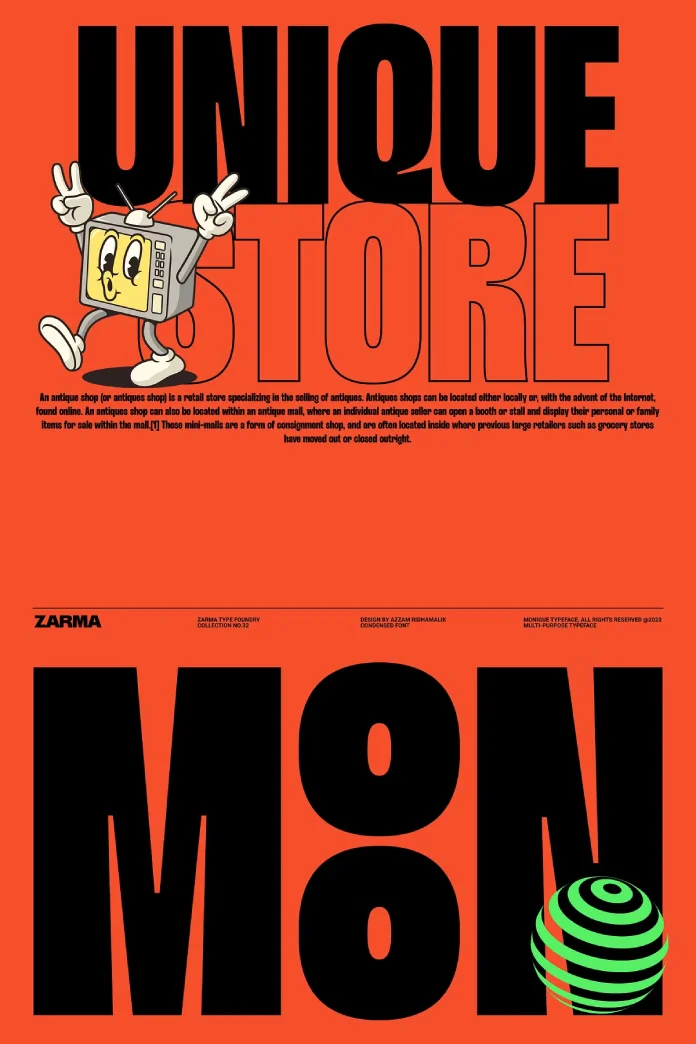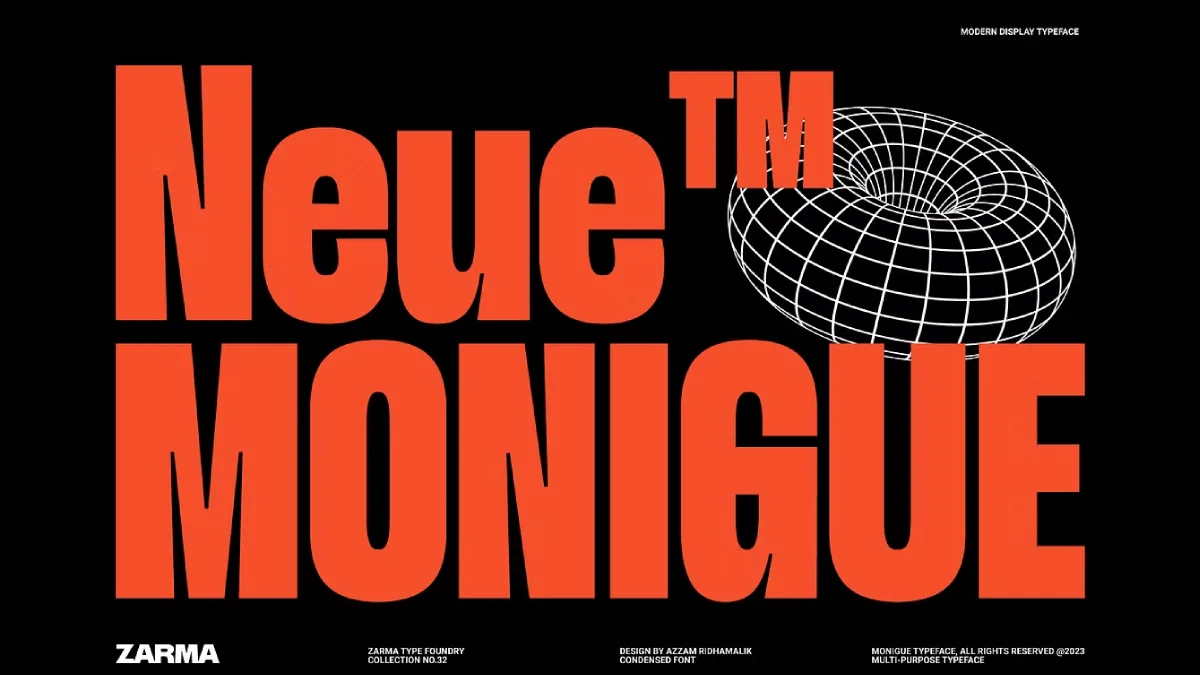
Say Hello to the Monigue Font: The Bold Retro Typeface Redefining Modern Design
Some typefaces whisper. The Monigue font, however, makes a definitive statement. This bold, condensed sans-serif from the creative minds at Zarma Type is more than just a collection of letters; it’s a powerful design tool crafted for impact. It channels the sleek, forward-thinking aesthetic of the early 2000s, yet feels perfectly engineered for today’s digital and print landscapes. When your message needs to be seen and felt, not just read, this is the typeface that delivers. It possesses a certain gravity, an undeniable presence that commands attention from the very first glance. But what is it about this specific font that gives it such a commanding voice?
The answer lies in its thoughtful construction. The Monigue font expertly balances strength with elegance. Its condensed form allows for powerful headlines in tight spaces, while its clean, sans-serif lines ensure maximum readability. This isn’t just another font in a designer’s toolkit; it’s a strategic choice for anyone looking to convey confidence, clarity, and a touch of modern nostalgia.
The Unmistakable Power of the Monigue Font’s Design
At its core, the Monigue font is an exercise in powerful minimalism. The characters are tall, proud, and drawn with geometric precision. This structure gives it an architectural quality, making it feel both sturdy and sophisticated. Think about the last time a piece of design truly stopped you in your tracks. What was it about the typography that held your gaze? Often, it’s a combination of weight and proportion, and this is where the Monigue font truly excels.
Its bold weight ensures it stands out against any background, whether it’s on a busy event poster or as the hero text on a minimalist website. Furthermore, its condensed nature is a massive advantage. You can create striking, text-heavy compositions without the words feeling cramped or overwhelming. This makes it an incredibly versatile asset for projects that demand both style and substance.
A Nostalgic Nod to 2000s Modernism
The inspiration drawn from the 2000s is not just a stylistic footnote; it’s central to the font’s identity. That era’s design was defined by a sense of tech-optimism, clean interfaces, and sleek branding. The Monigue font captures this spirit perfectly. It avoids the fuss and ornamentation of other styles, opting instead for pure, unadulterated form.
This connection to a specific design movement gives it a unique personality. It feels familiar yet fresh. For designers aiming to evoke a sense of modern efficiency or a retro-tech vibe, the Monigue font is an authentic choice. It’s not simply mimicking a trend; it’s reinterpreting a classic aesthetic for a new generation of creative projects. How can this specific historical influence elevate your own work?
Practical Applications: Where the Monigue Font Shines
A great typeface is only as good as its application. Fortunately, the Monigue font is a true workhorse, adaptable to a wide array of design challenges. Its strong character makes it an ideal display font for situations where you need to make an immediate impact.
Stunning Posters and Captivating Headlines
For poster design, the Monigue font is a game-changer. Its condensed form allows you to fit more information into a headline while maintaining a massive visual scale. Imagine a movie poster or a concert announcement set in this typeface. The text itself becomes a key part of the artwork. Similarly, for website headlines and banners, this bold condensed sans serif font grabs user attention instantly, guiding their eyes and establishing a clear visual hierarchy.
Sleek Interface and Logo Design
In user interface (UI) design, clarity is king. The Monigue font provides that clarity in spades, especially for menu headers, titles, and call-to-action buttons. Its clean lines ensure legibility even at smaller (though not body text) sizes.
When it comes to logo design, the Monigue font offers a fantastic foundation. Its contemporary sans-serif design is perfect for creating memorable wordmarks for tech companies, fashion brands, or any business that wants to project a modern, confident image. The strong presence of the font means that a logo built with it will be both impactful and timeless.
Under the Hood: The Technical Features
Beyond its striking appearance, the Monigue font is packed with professional-grade features that enhance its usability and versatility. Zarma Type has ensured that this typeface is not just beautiful but also technically robust.
These features include:
- Comprehensive Character Set: Uppercase, lowercase, numbers, and extensive punctuation are all included, providing everything you need for complete designs.
- Artistic Ligatures: The inclusion of ligatures allows certain character pairs to connect in a more natural, fluid way. This adds a subtle touch of custom typography and polish to your work.
- OpenType Functionality: The Monigue font leverages OpenType features, giving designers more control over the final look and feel of the text.
The vision of Zarma Type is clear in the final product. They have created more than just a typeface; they have built a reliable and inspiring design component. The Monigue font stands as a testament to the idea that typography can be both a work of art and a highly practical tool. It’s a bold choice for designers who aren’t afraid to make a statement and demand the very best from their creative assets. Ultimately, this font doesn’t just follow trends—it empowers you to set them.